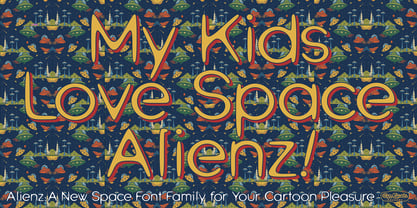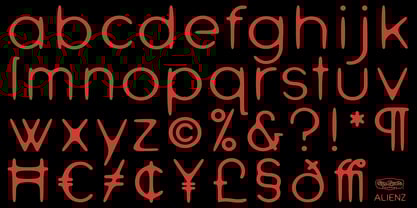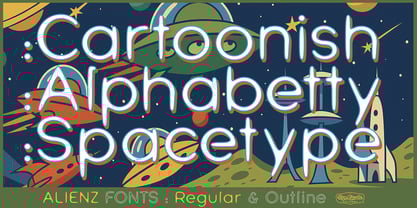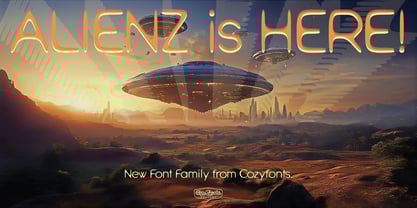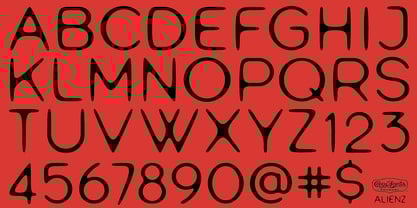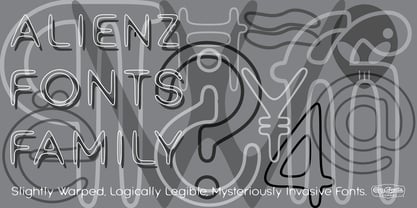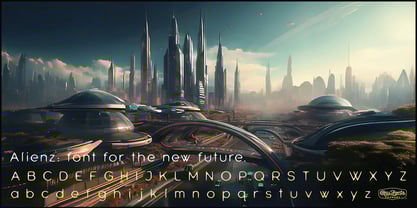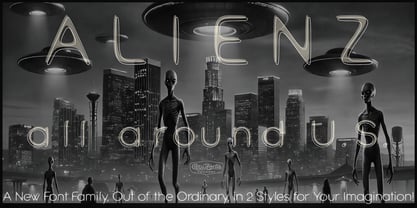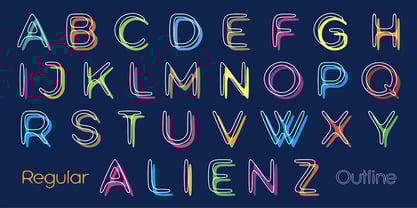
Alienz
by CozyFonts
The Alienz Font Family was designed by Tom Nikosey and published by CozyFonts. Alienz contains 2 styles and family package options.
Alienz Regular & Alienz Outline is a playful typeface that channels the retro-futuristic optimism of the 1960s with a quirky, supernatural twist.
Inspired by the sleek, space-age aesthetics of The Jetsons, it features rounded, spade-shaped letterforms with exaggerated curves accents that feel plucked straight from a cartoon utopia. Yet beneath its whimsical charm lies a subtle eerie vibe, echoing the mysterious tone of The Twilight Zone. Odd angles, offbeat proportions, and subtle focus give the typeface an uncanny feel—like a transmission from an alternate dimension.
Alienz is perfect for projects that want to blend nostalgia, imagination, and a hint of the unknown. Alienz fonts lend the perfect match to anything ‘outer space’ or ‘extra-terrestrial’ in nature.